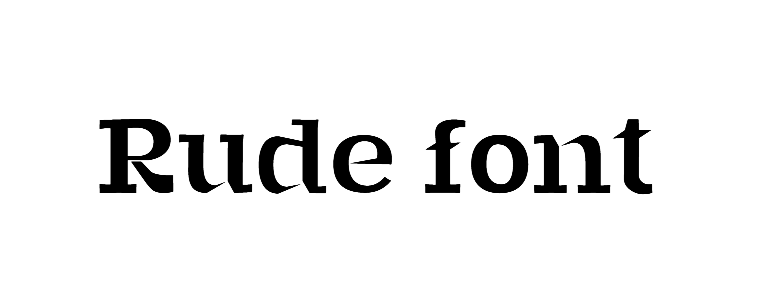
Rude Font | Rude Extra
Rude Font | Rude Extra is a serif font (2016). It has the traditional, bookish feel of type you see in novels, newspapers and long-established brands. You can download it for free and test it with your own words in the preview above.
What You Can Type With Rude Font | Rude Extra
With complete upper and lowercase letters and all ten digits, Rude Font | Rude Extra is ready for real wording, not just a single headline. Everyday marks like &, !, ? and @ are there too. Thanks to its accented letters, it also works for Spanish, French, German, Portuguese and Italian, not just English.
Where Rude Font | Rude Extra Works Best
Think of Rude Font | Rude Extra for book covers, magazine headlines and classic branding. The file has no kerning data, so in logos and big titles check pairs like AV, To and Wa and tighten the spacing by hand. Serif fonts shine in headlines and printed text. For long paragraphs on phones, check that it still reads well at small sizes.
Does Rude Font | Rude Extra support accented letters?
Yes. Rude Font | Rude Extra includes the accented letters needed for Spanish, French, German, Portuguese and Italian, so it works for more than just English.